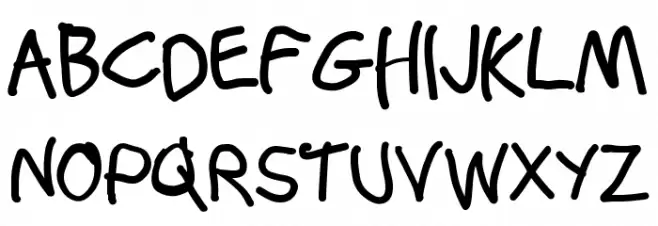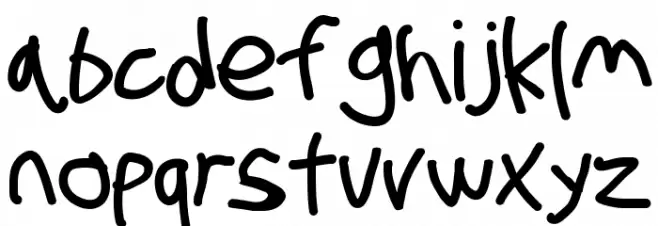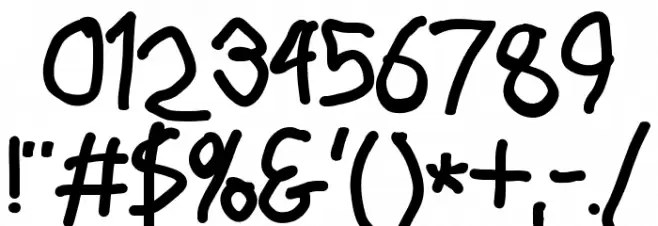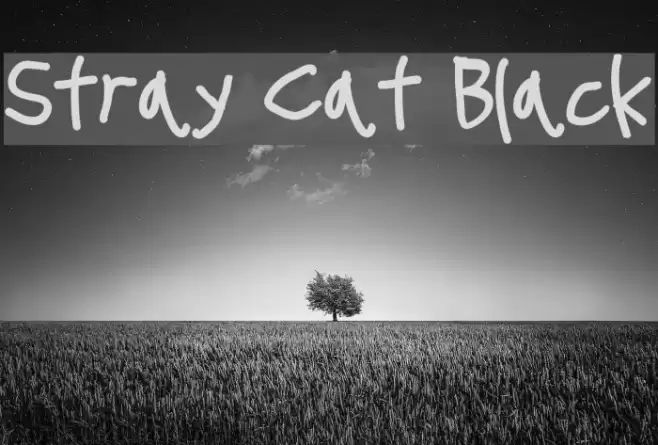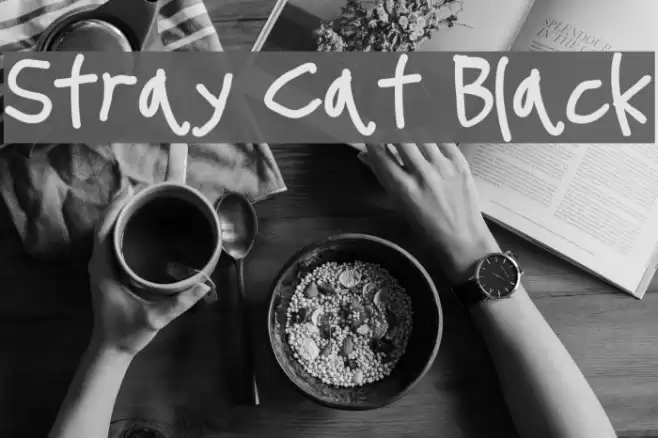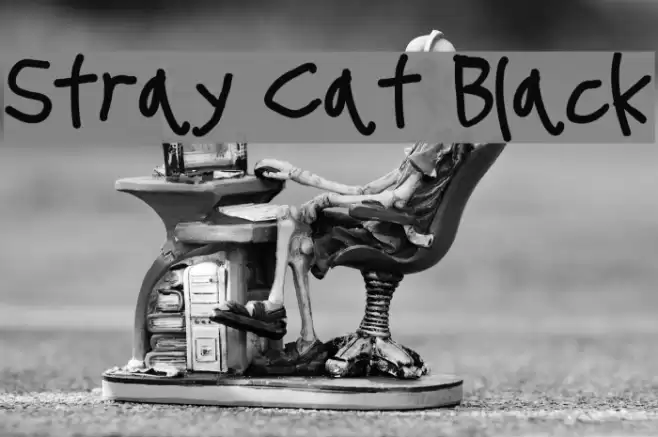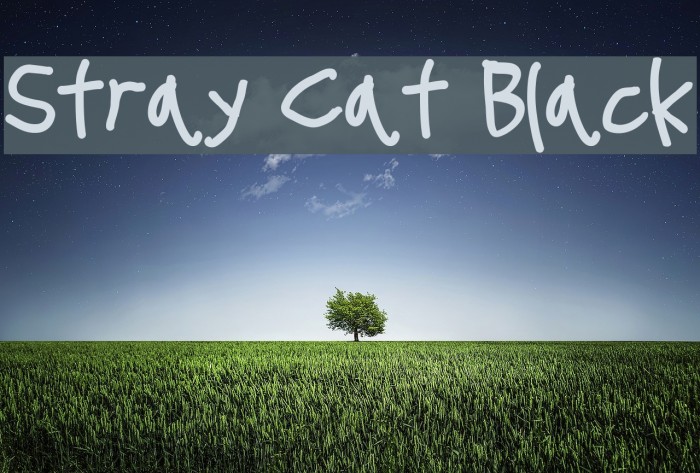
Stray Cat Black
This font features a playful and casual handwritten style, characterized by its bold and slightly irregular strokes. The letters have a spontaneous and organic feel, reminiscent of quick sketches or doodles. The uppercase and lowercase letters maintain a consistent style, with rounded edges and a slightly tilted appearance, adding to the informal charm. The numerals and special characters follow the same aesthetic, ensuring a cohesive look across all text. This font's unique personality makes it stand out, offering a friendly and approachable vibe.
A playful, bold handwritten font with a casual and organic style.
- Proposed Projects: Ideal for projects that require a personal touch, such as greeting cards, children's books, casual branding, or social media graphics.
- Overall Style: Casual
- Use Case: Logos, Headlines, Informal Text